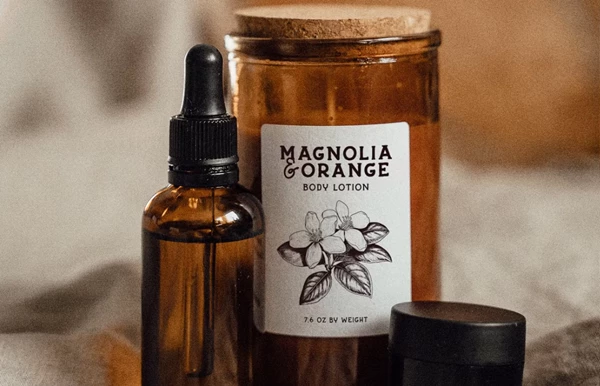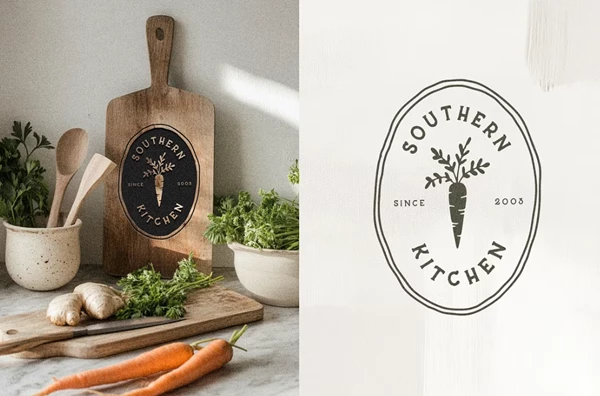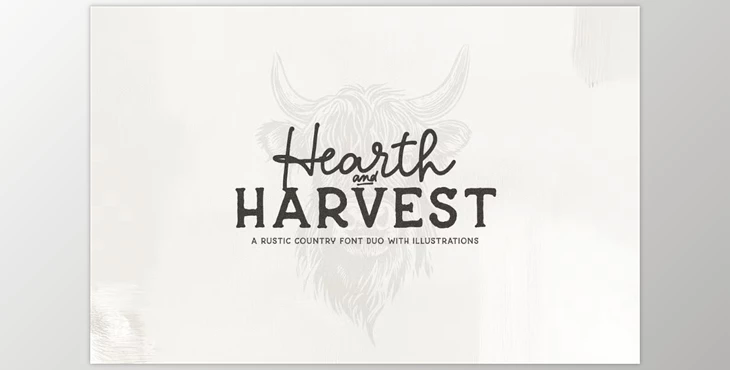
Hearth & Harvest Rustic Font Duo:
Hearth & Harvest Rustic Font Duo is a unique package that consists of two serif styles: script and serif, which were hand drawn. Both of these letters were beautifully crafted and gave off a rustic charm. The collection is very resourceful because it incorporates regular and bold scripts, which makes it excellent for logos, quotes, apparel magazines, and much more.
Some great features of Hearth & Harvest Rustic Font Duo:
- Focused on English Characters: Their design was limited only to the English Alphabet, ensuring a fine level of precision and quality.
- Handwritten Charm: The rustic style of these fonts is made even better thanks to the engraved nature of fonts that have uneven edges.
"Hearth & Harvest Rustic Font Duo" Samples: